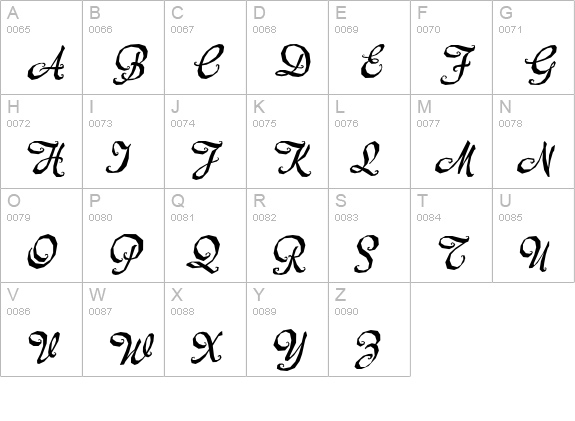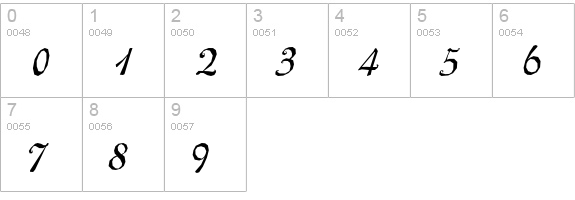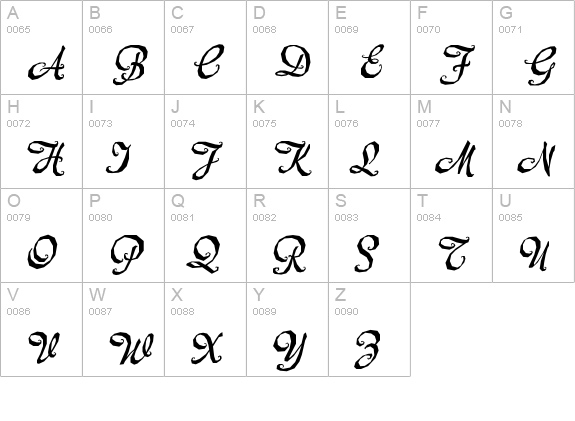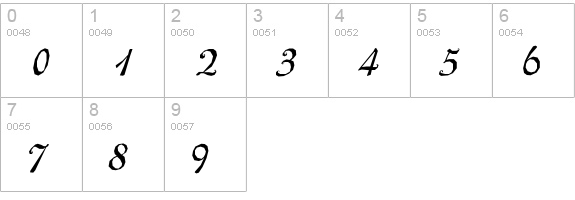
Mecheria Font Details
Mecheria font is a modern and stylish typeface that exudes elegance and sophistication. With its clean lines and sleek curves, Mecheria font is perfect for a wide range of design projects, from branding and logos to invitations and posters. Its versatility makes it suitable for both digital and print applications. What sets Mecheria font apart is not just its aesthetic appeal, but also the fact that it is available for free download at FontsMarket.com. This means that you can easily access this beautiful font and use it in your projects without any cost. So why wait? Download Mecheria font today and add a touch of class to your designs.